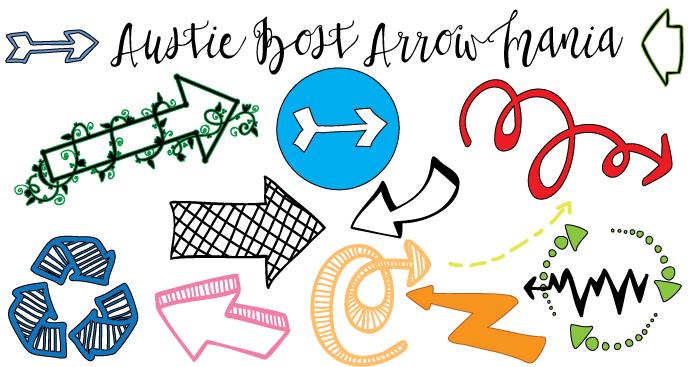
So there’s a story behind this font… For Austie Bost Envelopes, I worked with Ms. Kristi of I Should Be Mopping the Floor to get it juuuust right. When I asked about extras, she said ARROWS, and lots of them! I came up with lots, but could only cram so many into an alpha font… so here are the rest and a few more. 🙂